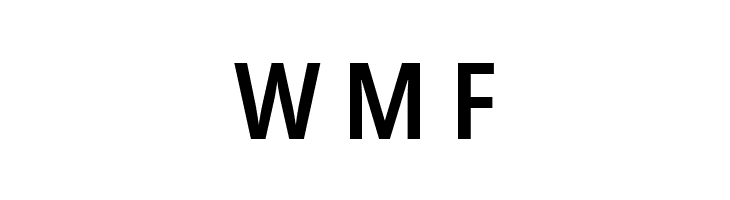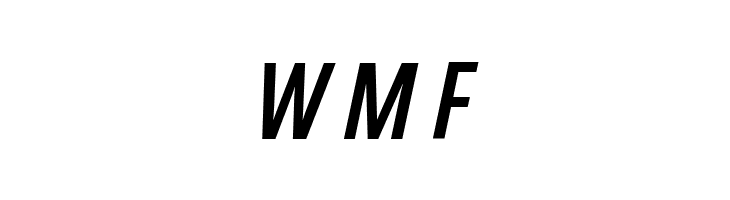
A modern sans-serif font known for its clarity and balanced weight.
A clean, semi-bold sans-serif font.
A modern, semi-bold, condensed sans-serif font with excellent readability.
A modern, sans-serif typeface with condensed, semi-bold letterforms.
A modern, condensed sans-serif font with semi-bold weight and italic style.
A modern, semi-bold, italic sans-serif font with a condensed structure and medium contrast.
A modern, condensed font with a clean and readable design.
A clean, modern font with consistent stroke widths and excellent readability.
A clean, modern sans-serif typeface with uniform stroke widths and balanced proportions.
A modern, semi-condensed sans-serif font with clear, legible characters.
A bold, semi-condensed font with a modern and robust design.
A modern, bold, semi-condensed sans-serif font with excellent readability.
A bold and clear font with strong visual impact.
A clean, modern, and semi-condensed extra light font.
A clean, modern font with balanced spacing and consistent stroke weight.
A modern, semi-condensed sans-serif font with medium weight and excellent readability.
A modern, semi-condensed sans-serif font with a semi-bold weight.
A thin, semi-condensed, modern typeface with clean lines and balanced spacing.
A clean, modern font with uniform stroke width and excellent readability.
A clean, modern font with uniform thickness and excellent readability.
A modern sans-serif font with uniform stroke width and slightly condensed proportions.
A clean, modern font with semi-condensed width and uniform strokes.
A bold, semi-condensed font with a modern and robust style.